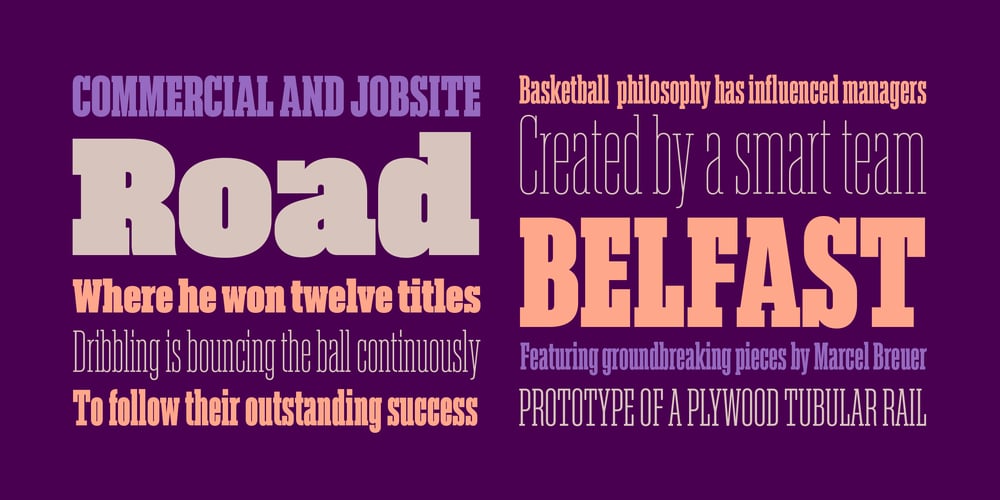
Akkordeon Slab Font Family was designed by Eduardo Manso and published by Emtype Foundry. Akkordeon Slab contains 15 styles and family package options. Akkordeon Slab is the next step in a series of ultra display typefaces. The new Slab version shares the same skeleton and spirit as the original Akkordeon, putting the same concepts into a different shape. Akkordeon Slab provides a stronger voice that enriches the whole family, becoming especially suitable for sports, business, fashion or any situation that requires impact headlines. Learn more about the Akkordeon design process at the Emtype’s Blog. See also the Akkordeon Slab PDF.Check out Akkordeon which is a great pair for Akkordeon Slab.